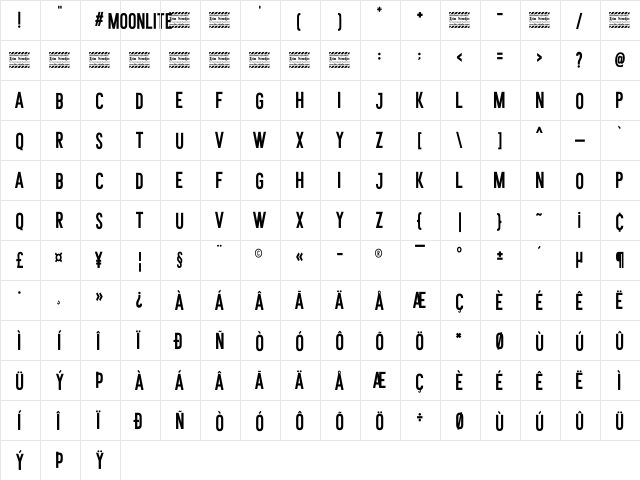
Moonlite Solid Personal Use Regular
| Designer | Donis Miftahudin |
Design Context for Moonlite Solid Personal Use Typeface
Moonlite Solid Personal Use is a composed and adaptable typeface that performs quietly and consistently across a wide range of design contexts.